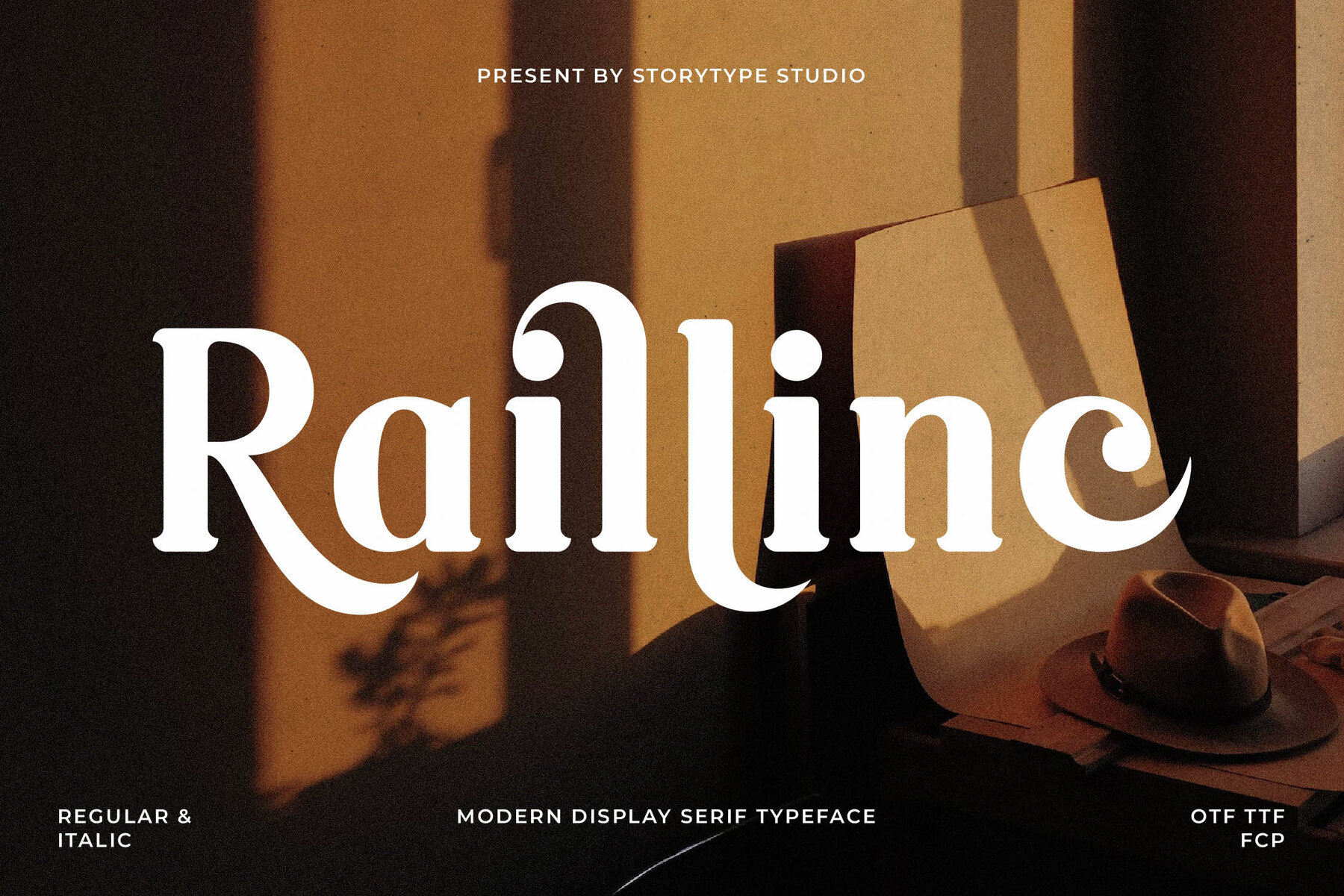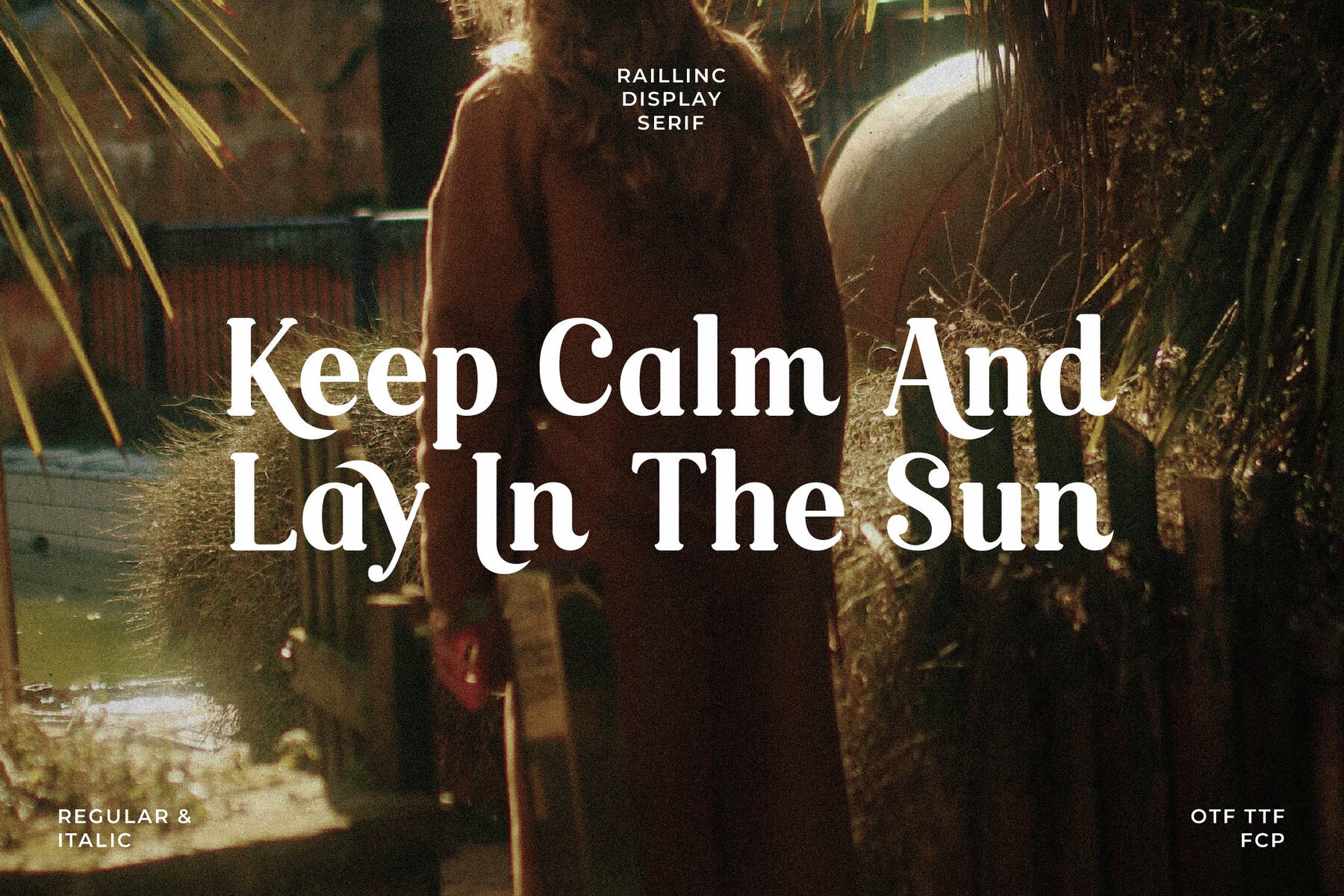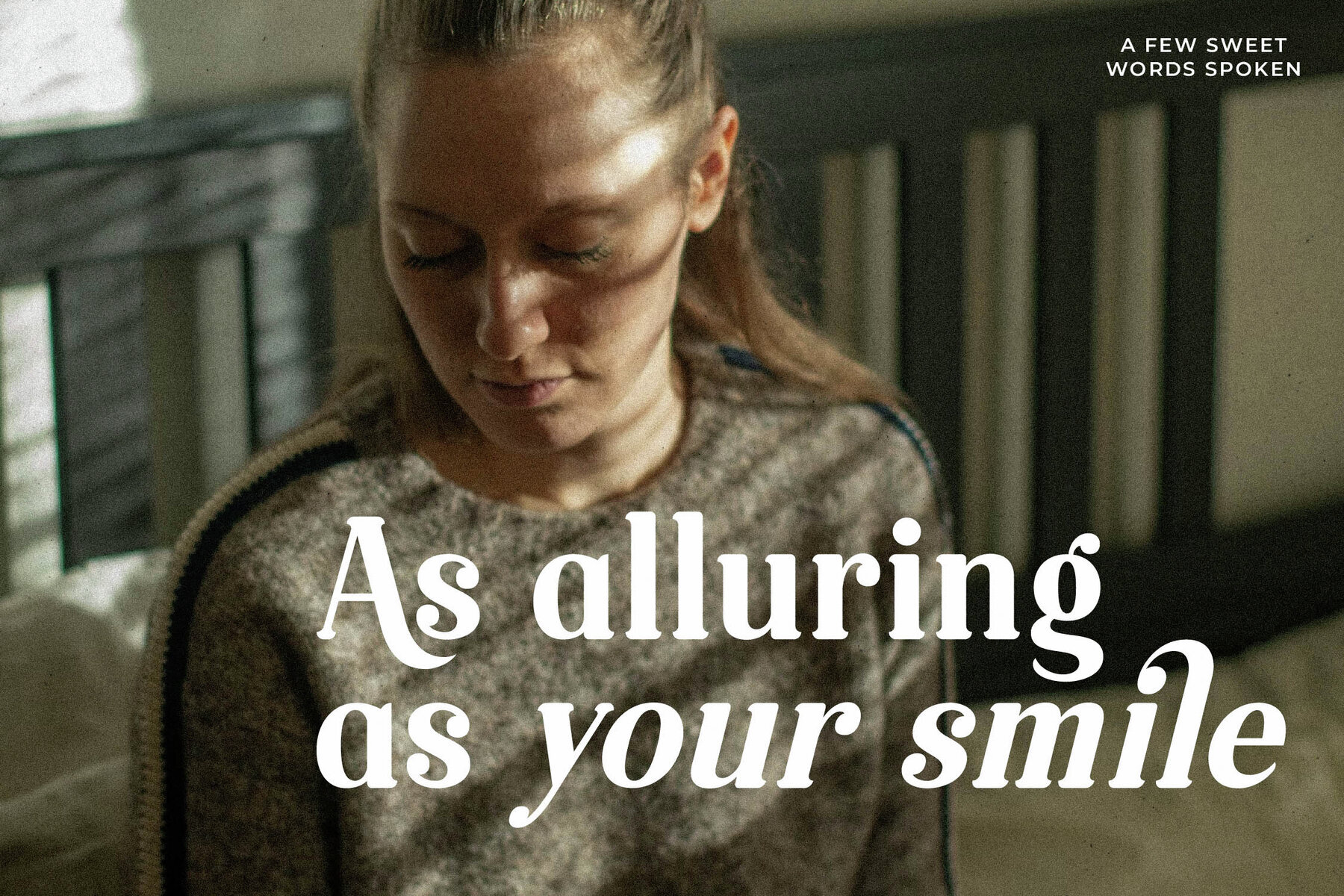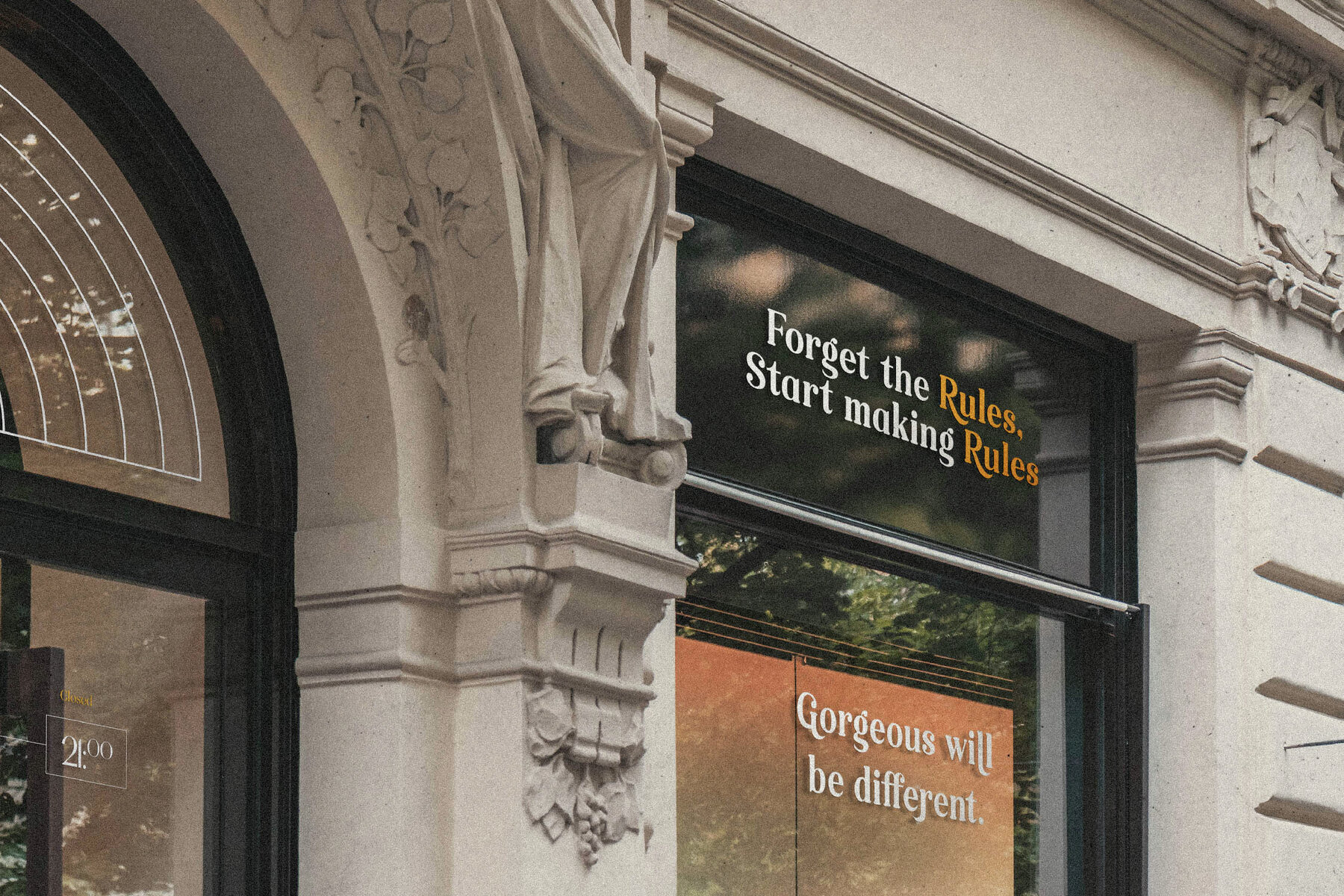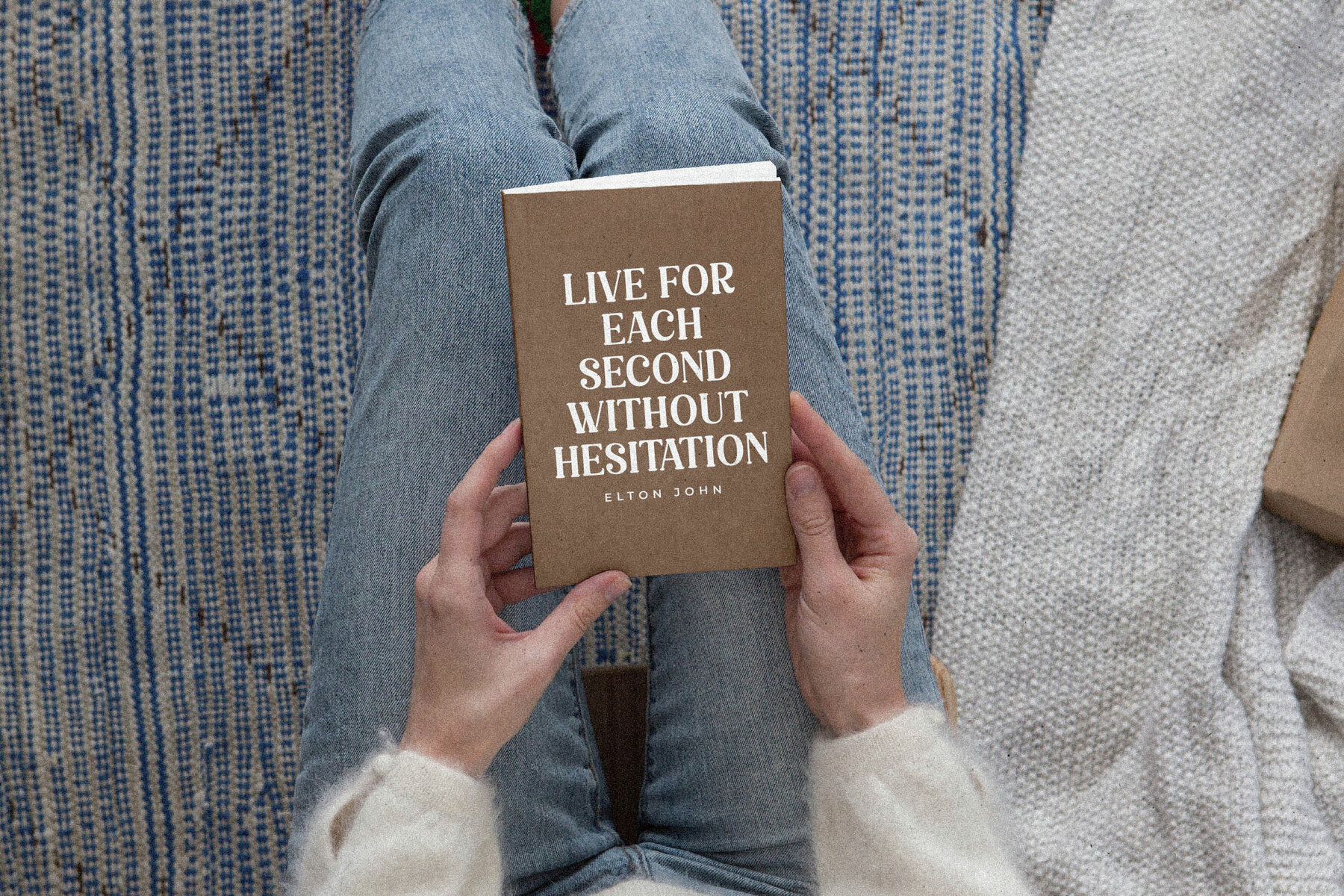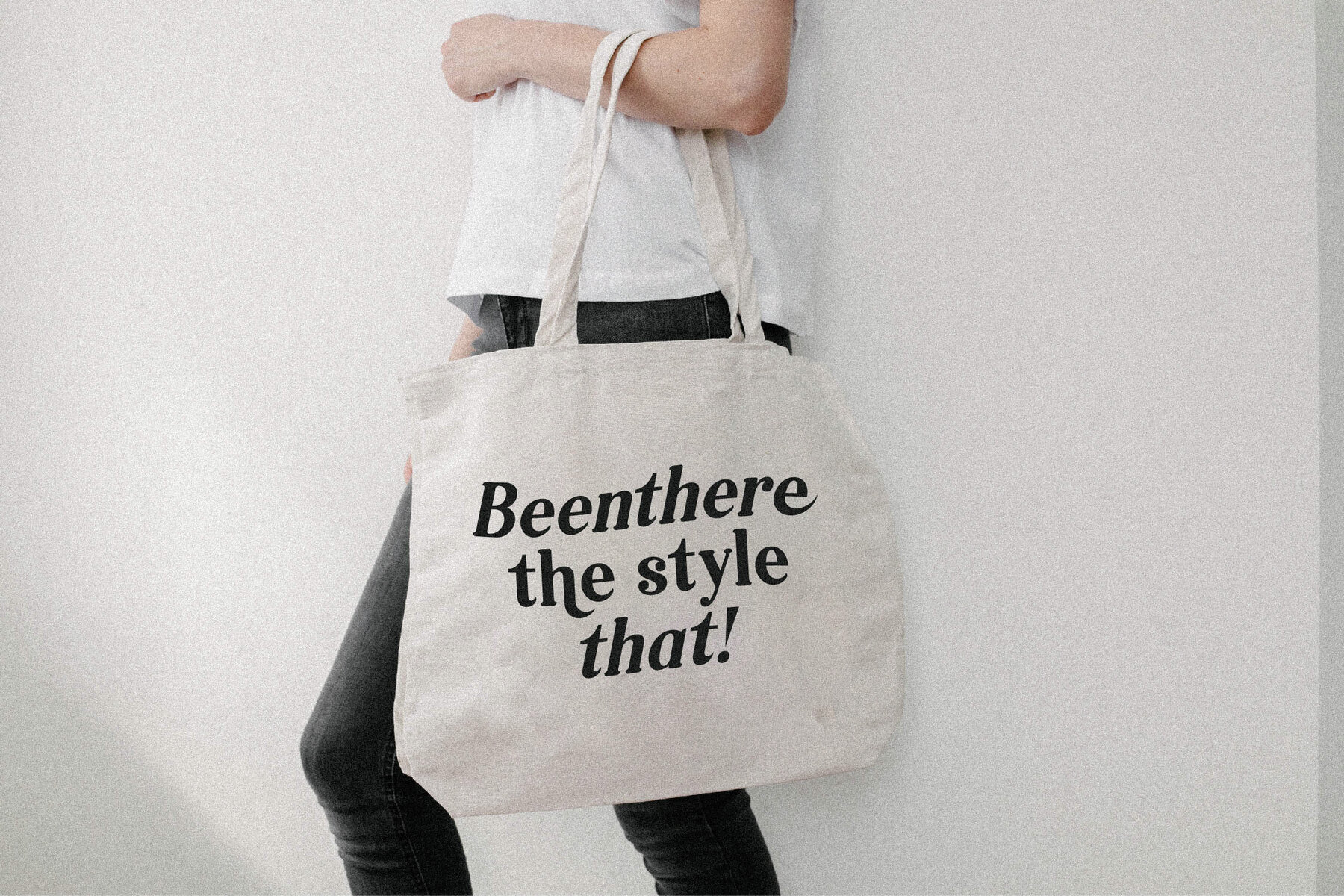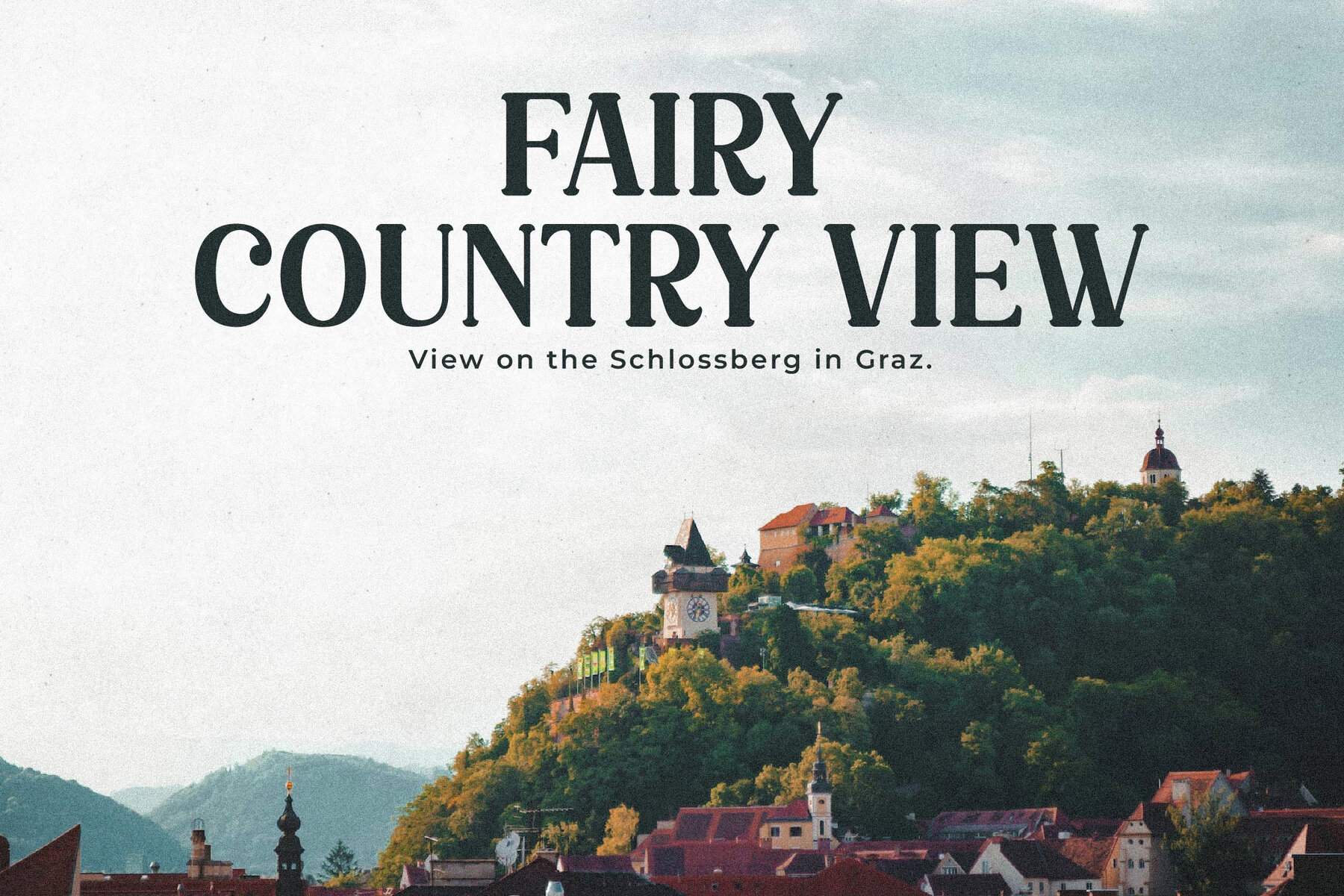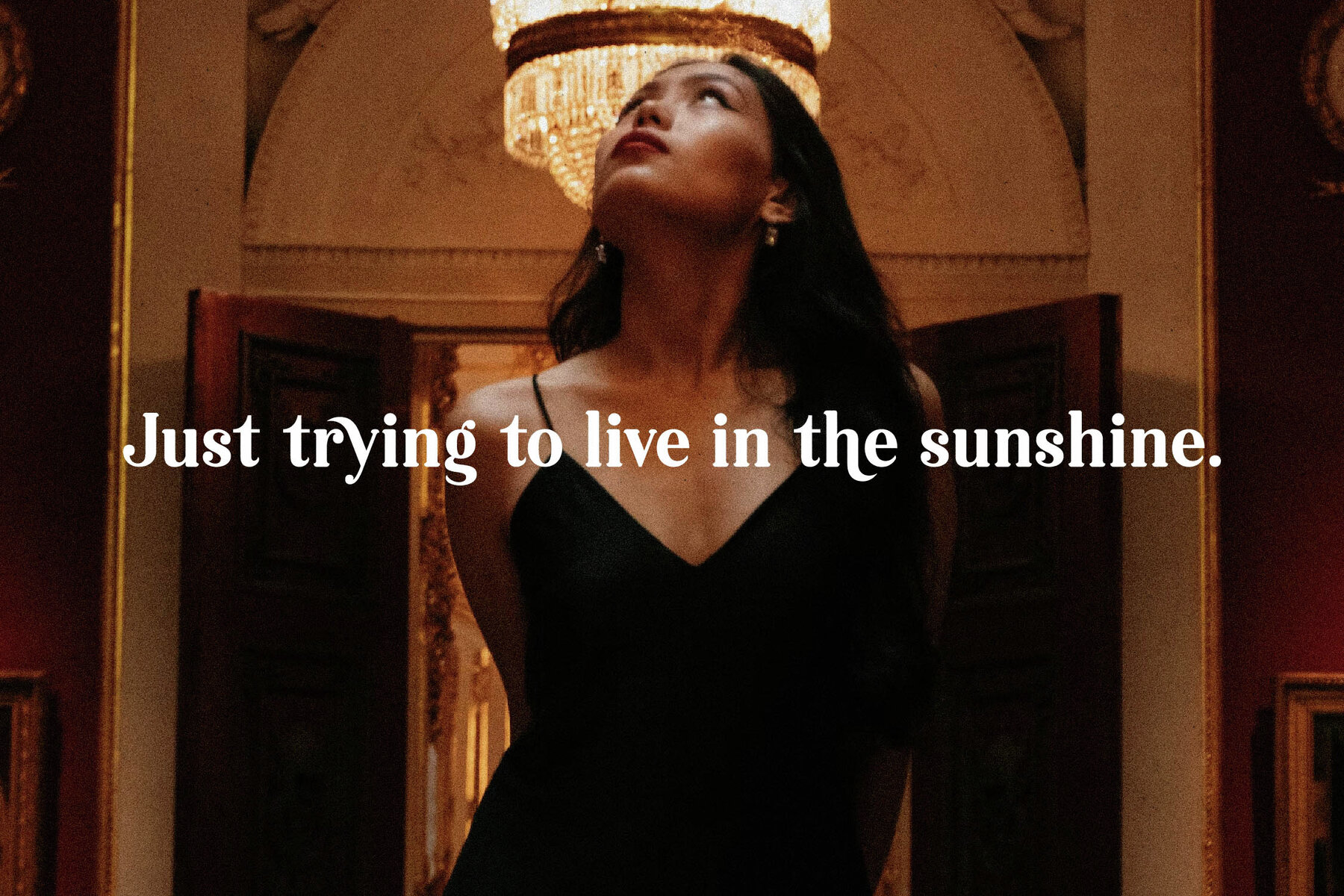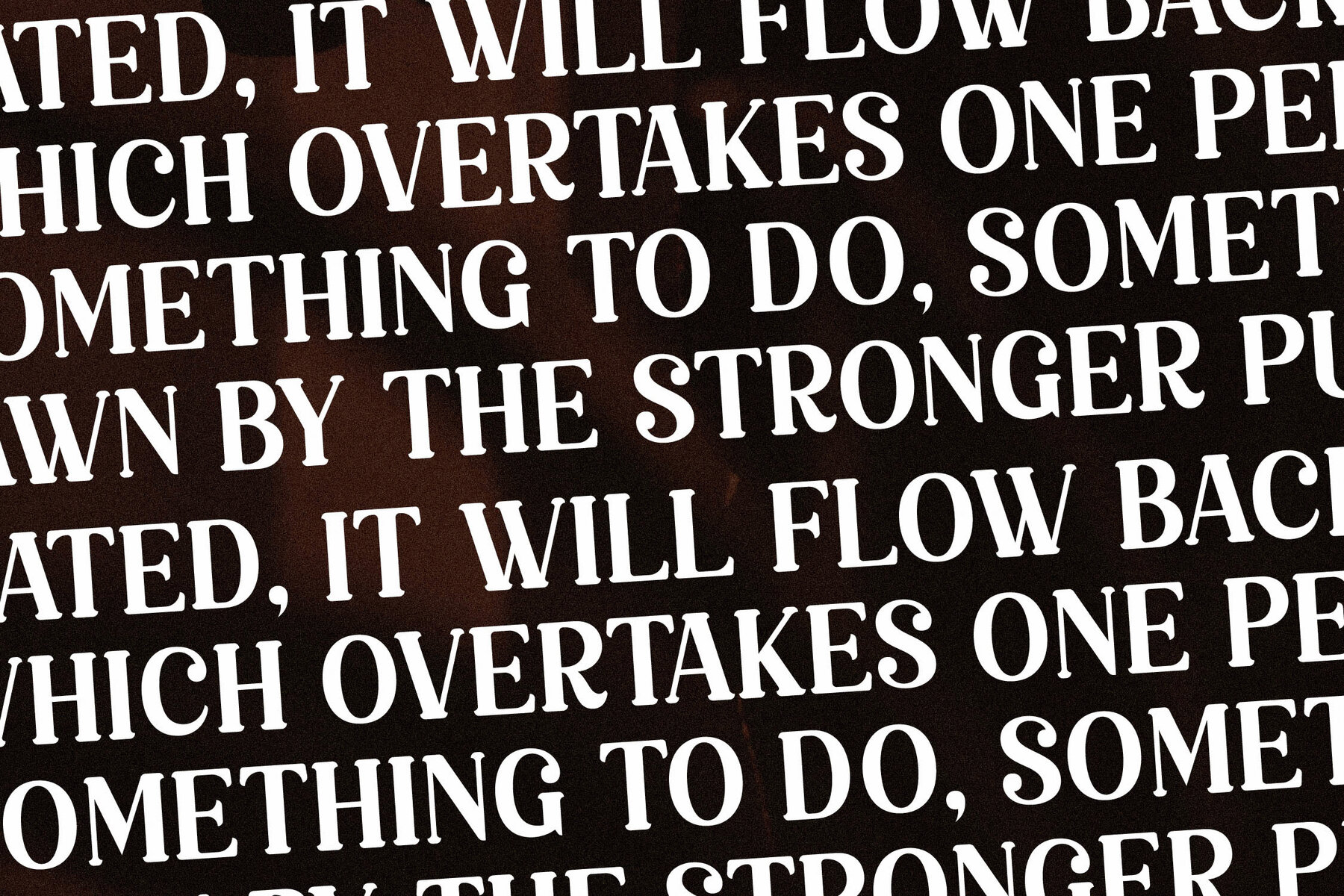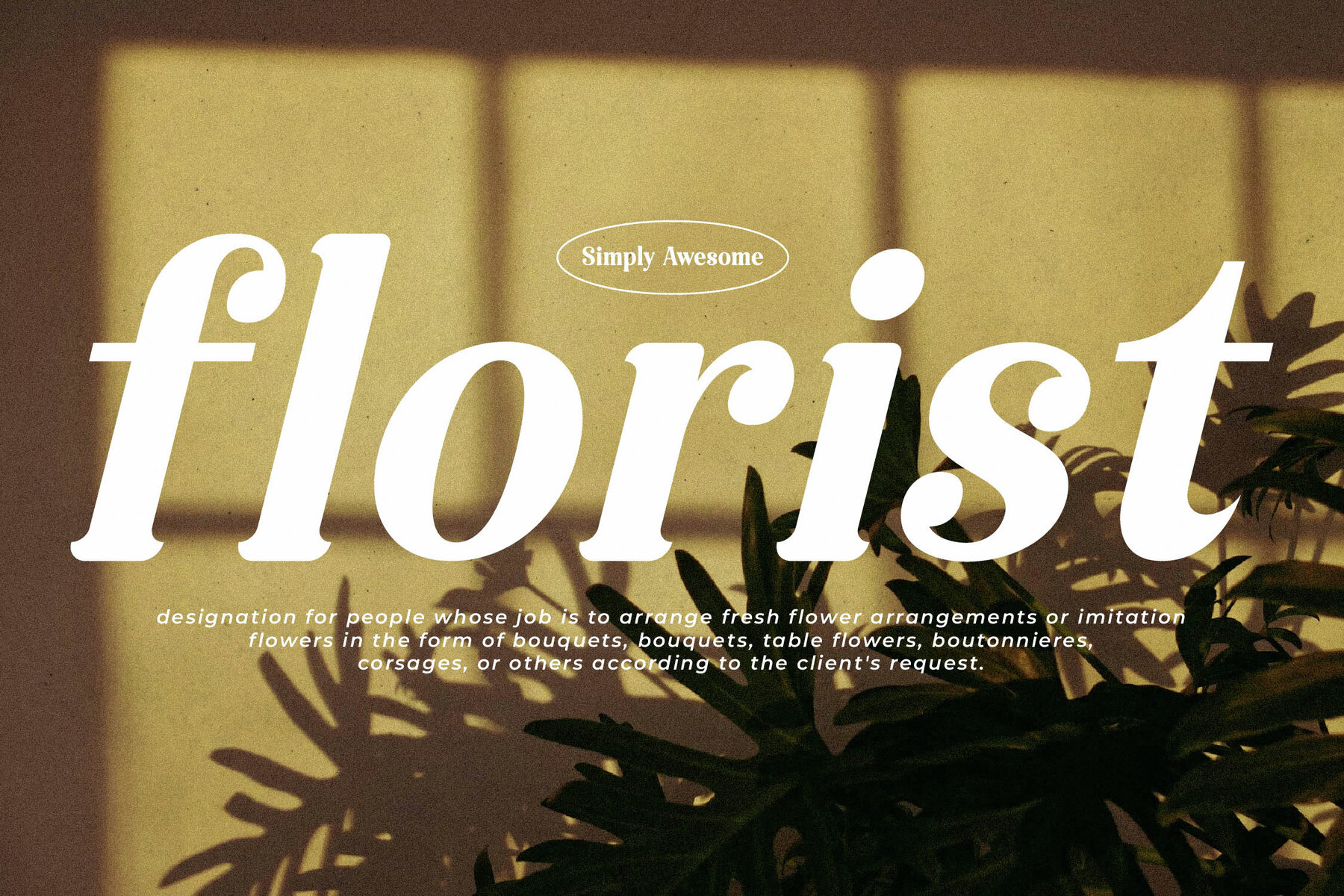
Raillinc Font
Raillinc
Raillinc Italic
Explore the timeless sophistication of the Raillinc Typeface. Fusing modern flair with classic serif elegance, this font delivers a unique style that enhances any project. Perfectly suited for luxury logos, book and movie titles, fashion brands, and magazine layouts, it elevates your design with a touch of luxury. Ideal for clothing labels, breathtaking quotes, and more, Raillinc offers versatility that truly stands out.Raillinc Typeface